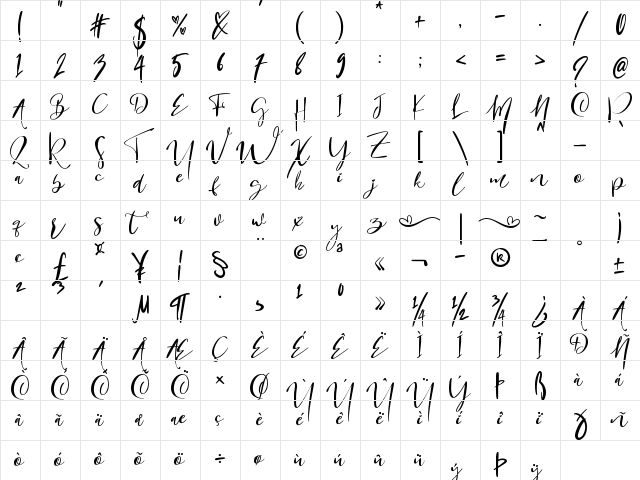
Bridesmaids Script Regular
| Designer | Noftanti Studio 2020 |
Design Context for Bridesmaids Script Typeface
Bridesmaids Script brings a calligraphic fluidity to the page — its connecting strokes and expressive curves give it an unmistakably human quality.